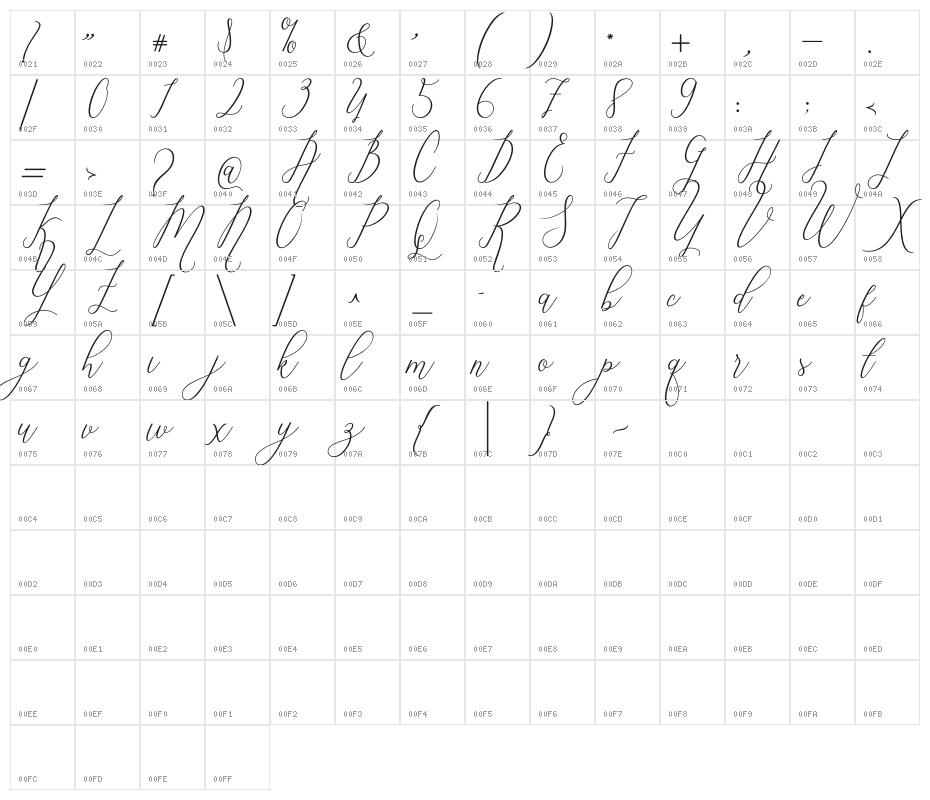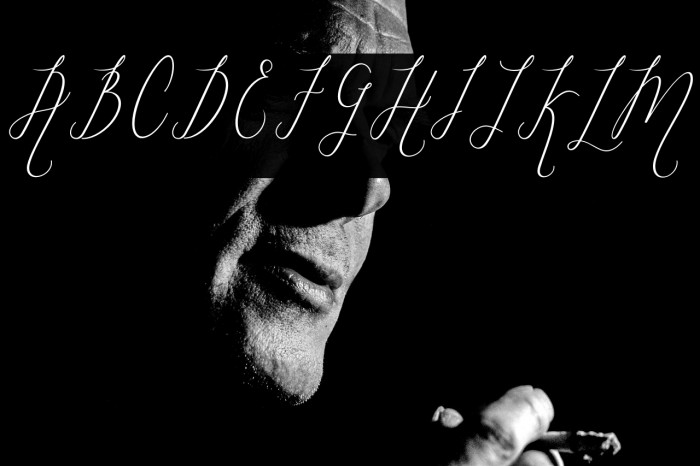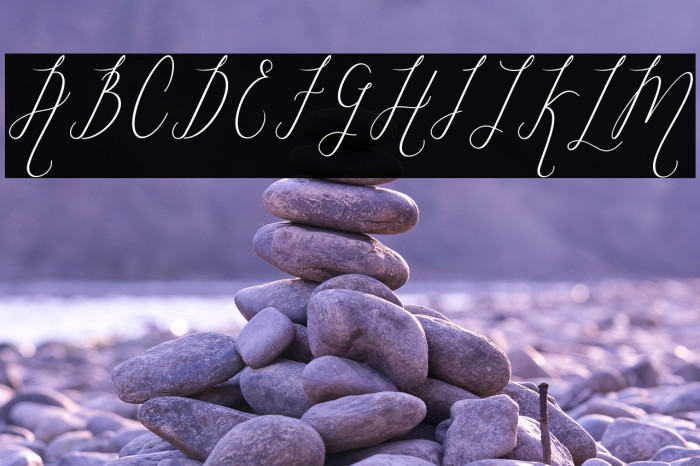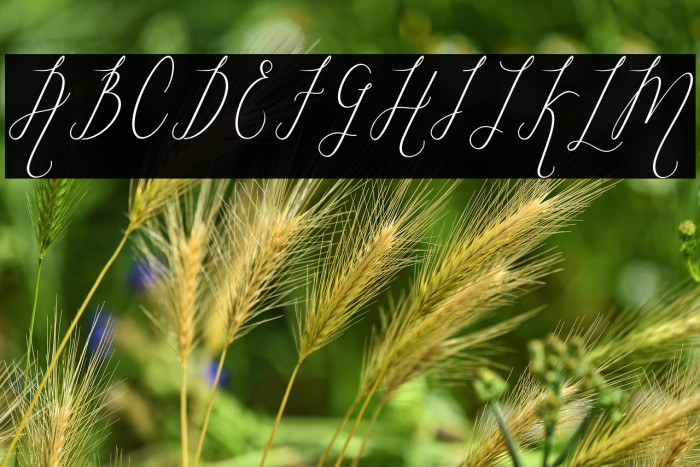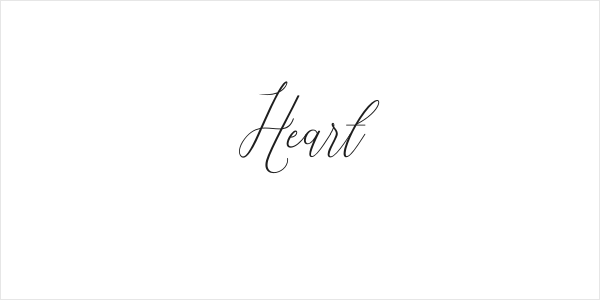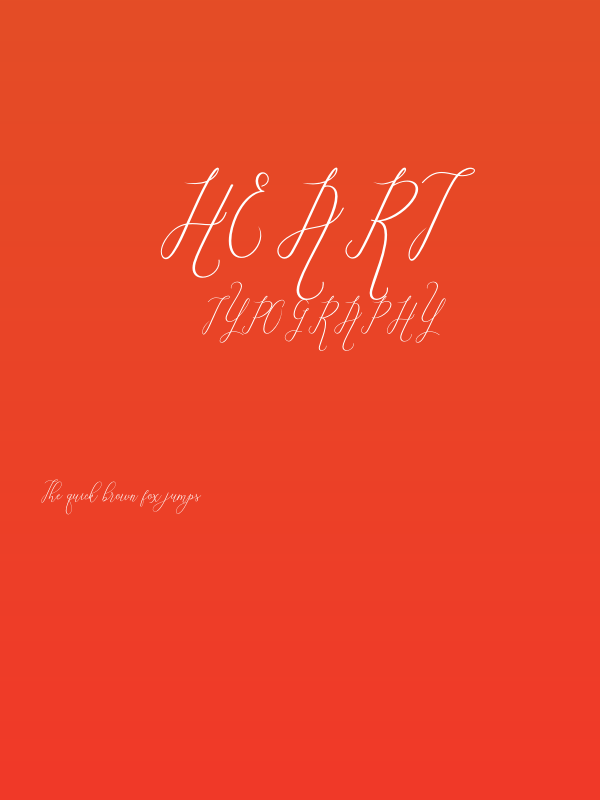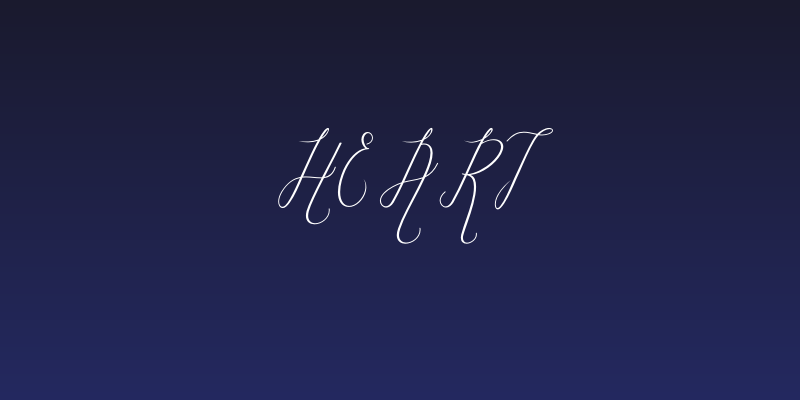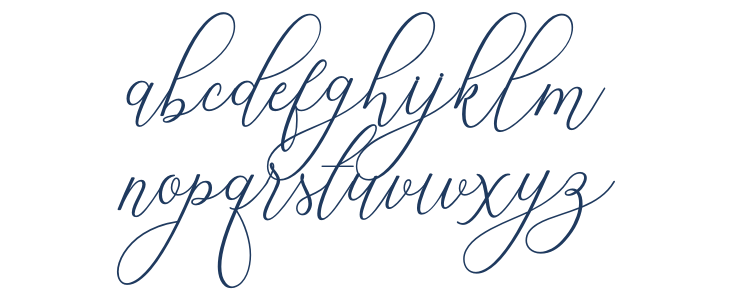
Heart Font
Heart Description
This elegant script font features a flowing, cursive style with graceful, elongated strokes and delicate curves. The uppercase letters are tall and slender, with a slight slant that adds a sense of movement and sophistication. The lowercase letters are more compact but maintain the same fluidity, creating a harmonious balance. The numbers are consistent with the overall style, featuring similar curves and loops. Special characters are designed with the same attention to detail, ensuring they blend seamlessly with the rest of the font. This font exudes a sense of elegance and refinement, making it ideal for formal and decorative applications.
| Overall Style | Elegant, Decorative |
| Use Case | Logos, Invitations, Decorative Text |
| Proposed Projects | Ideal for wedding invitations, elegant branding, high-end product packaging, and decorative signage. |